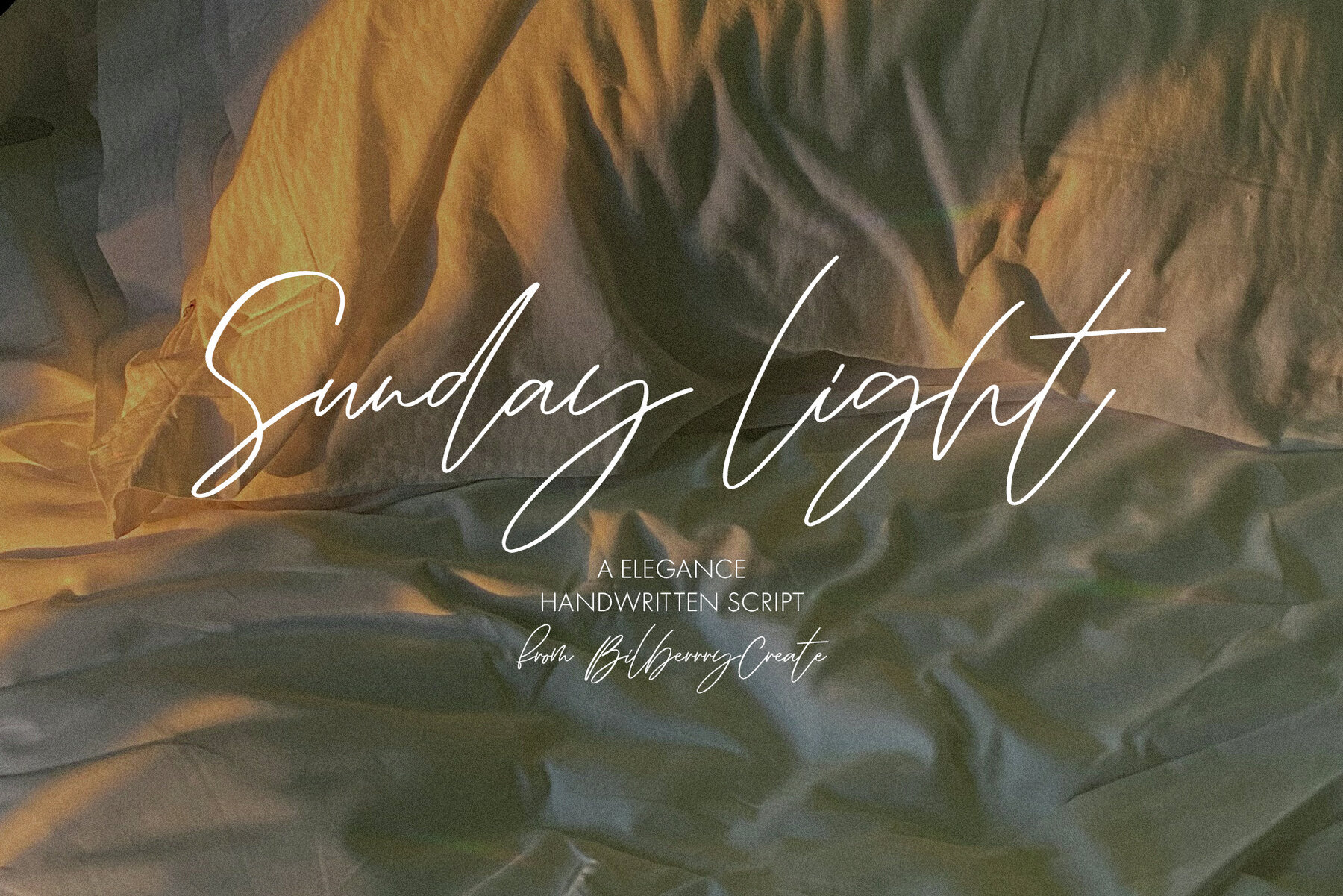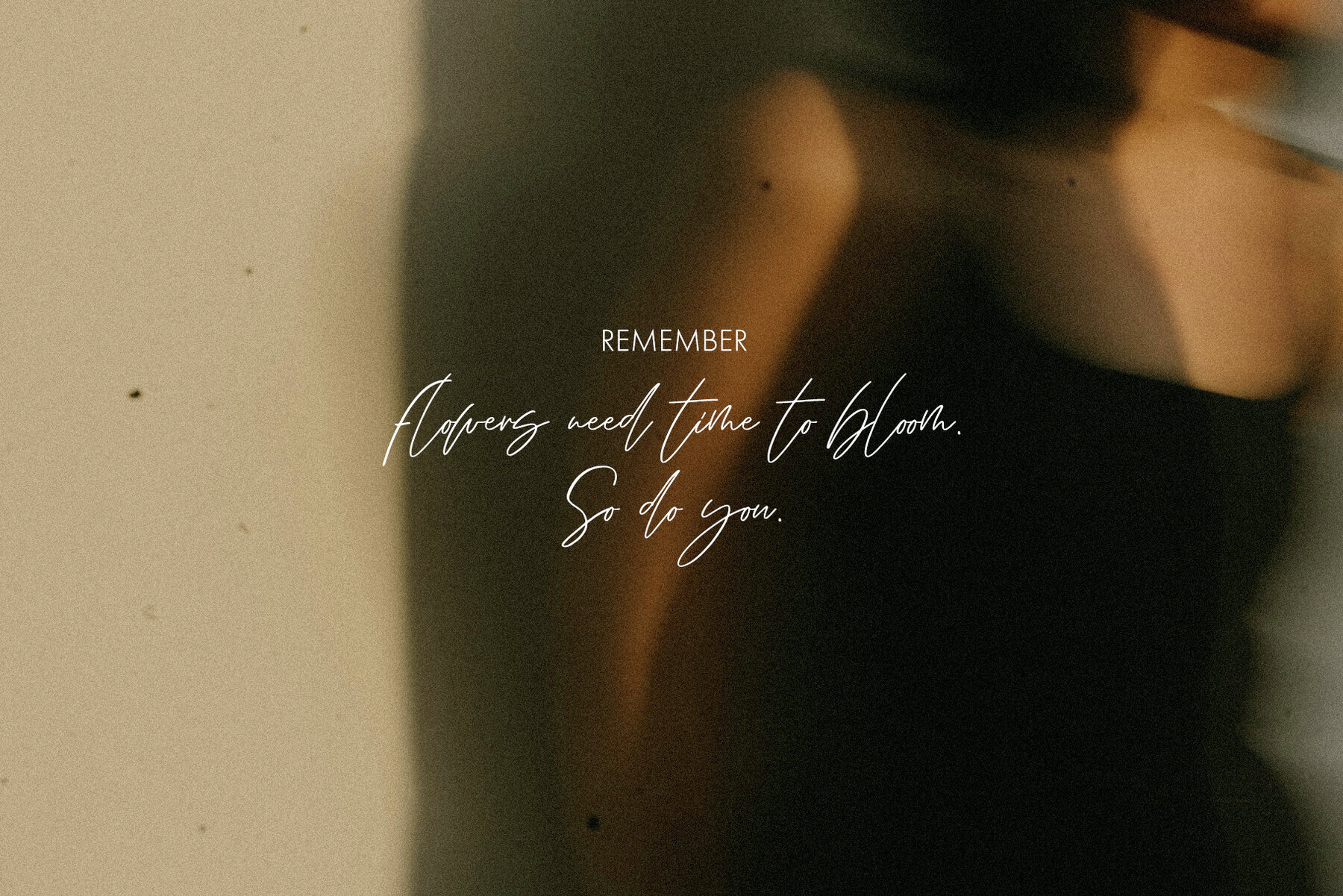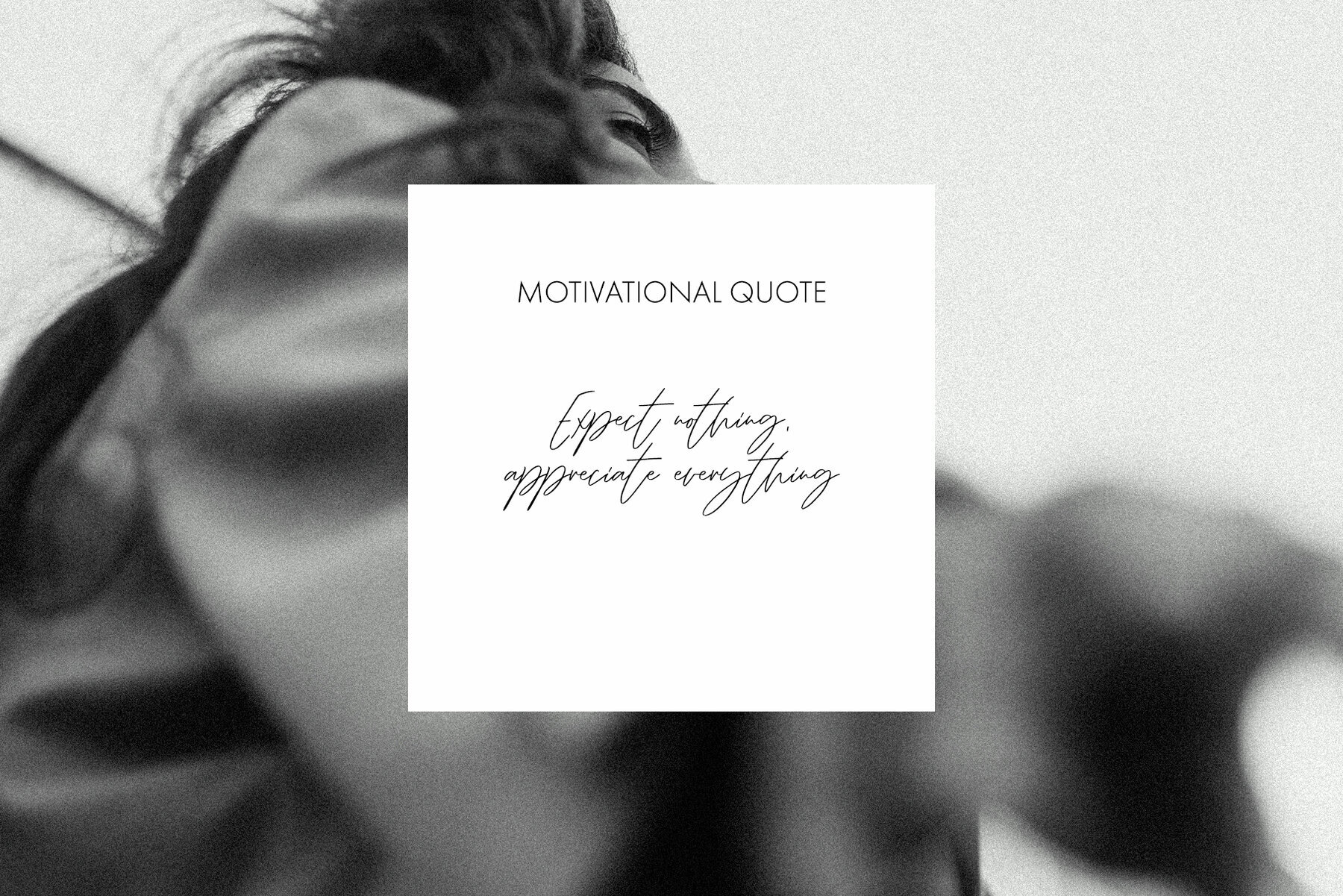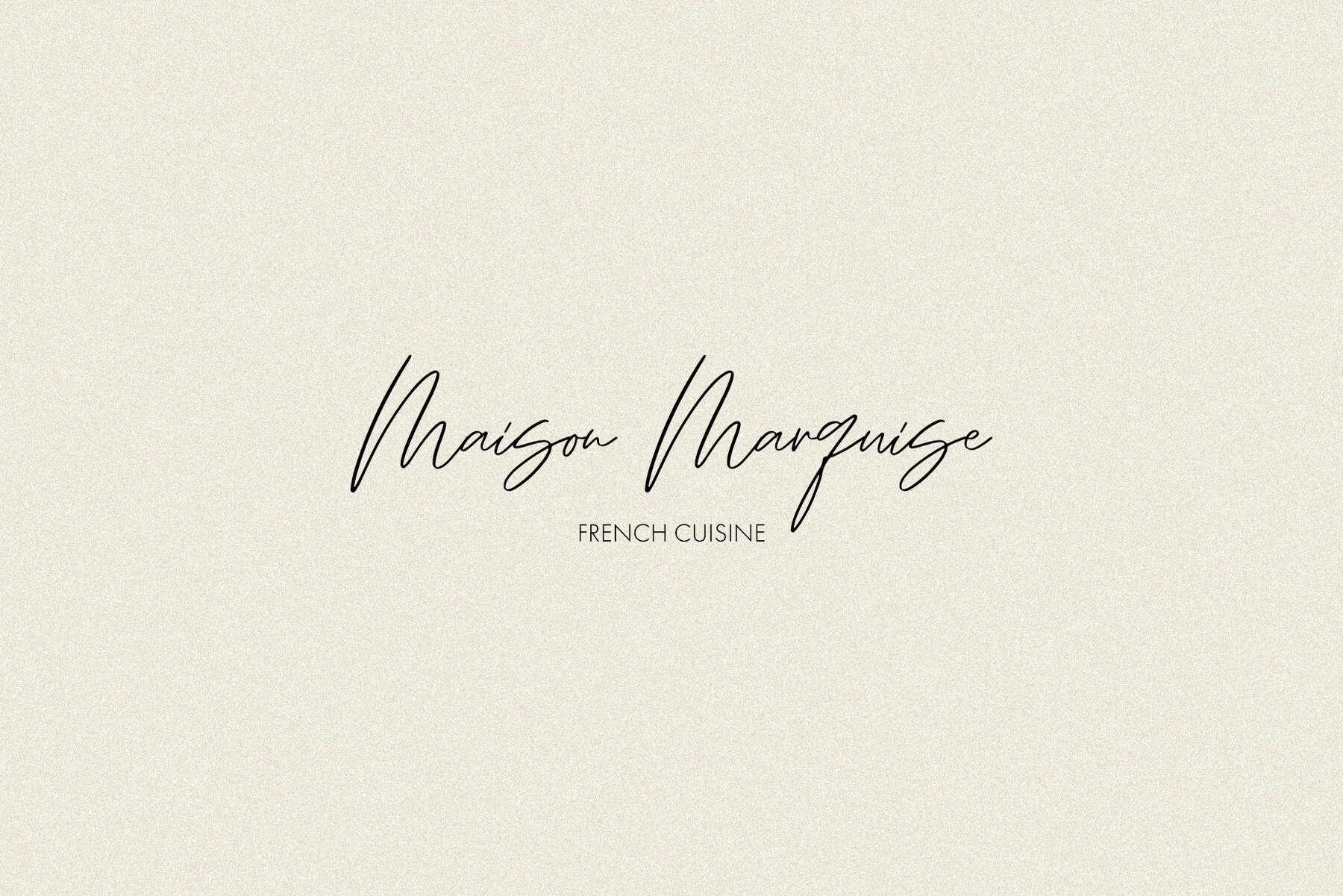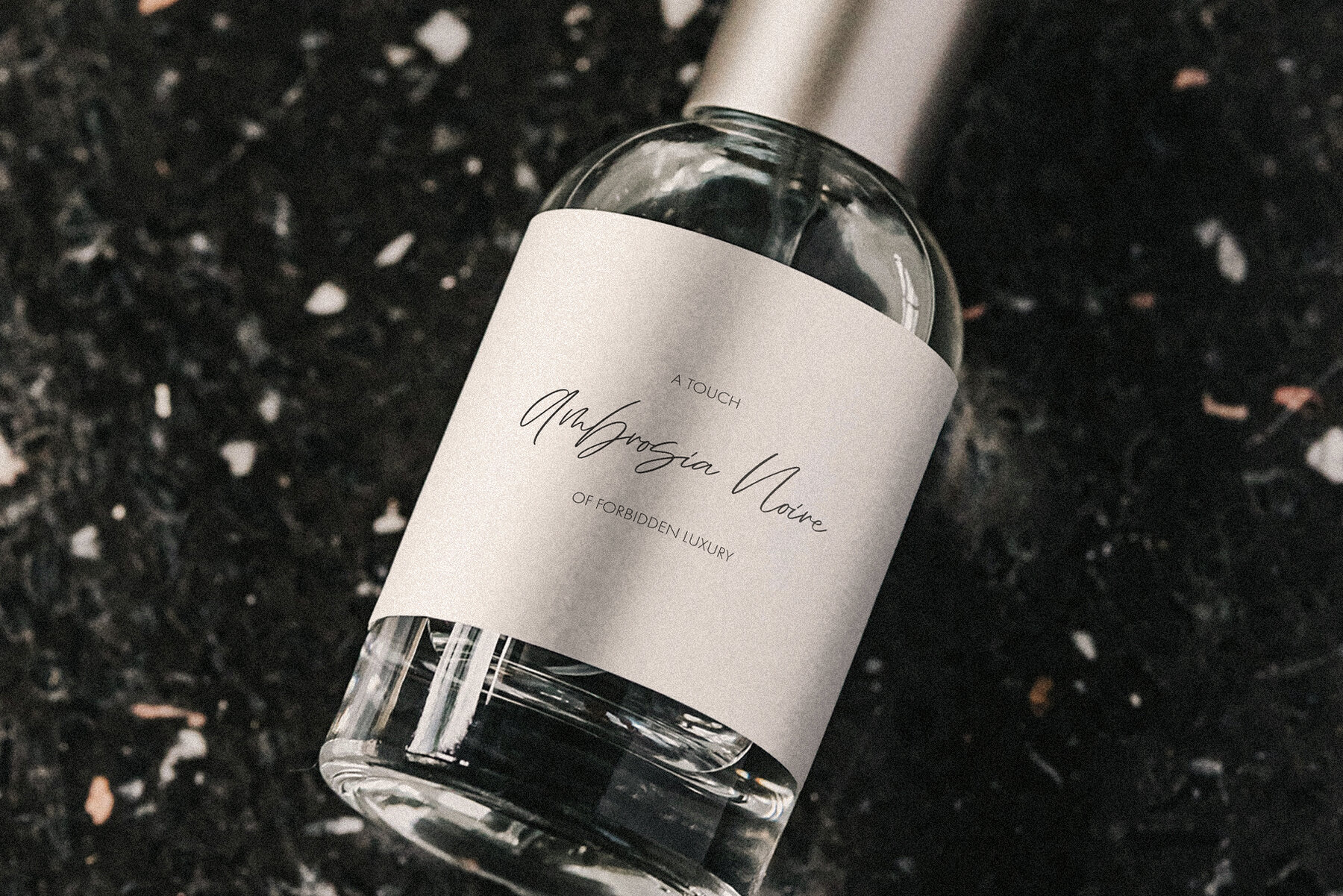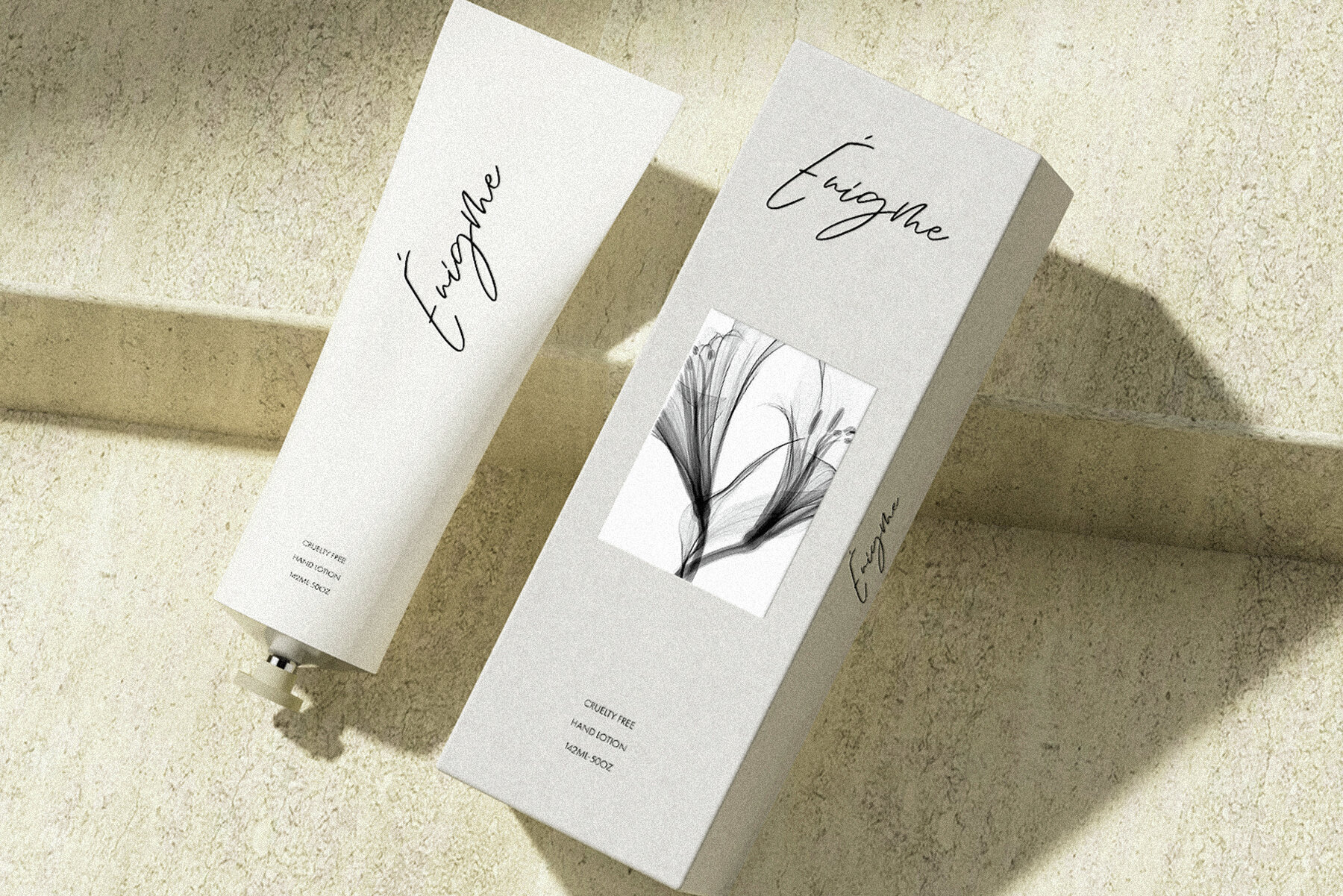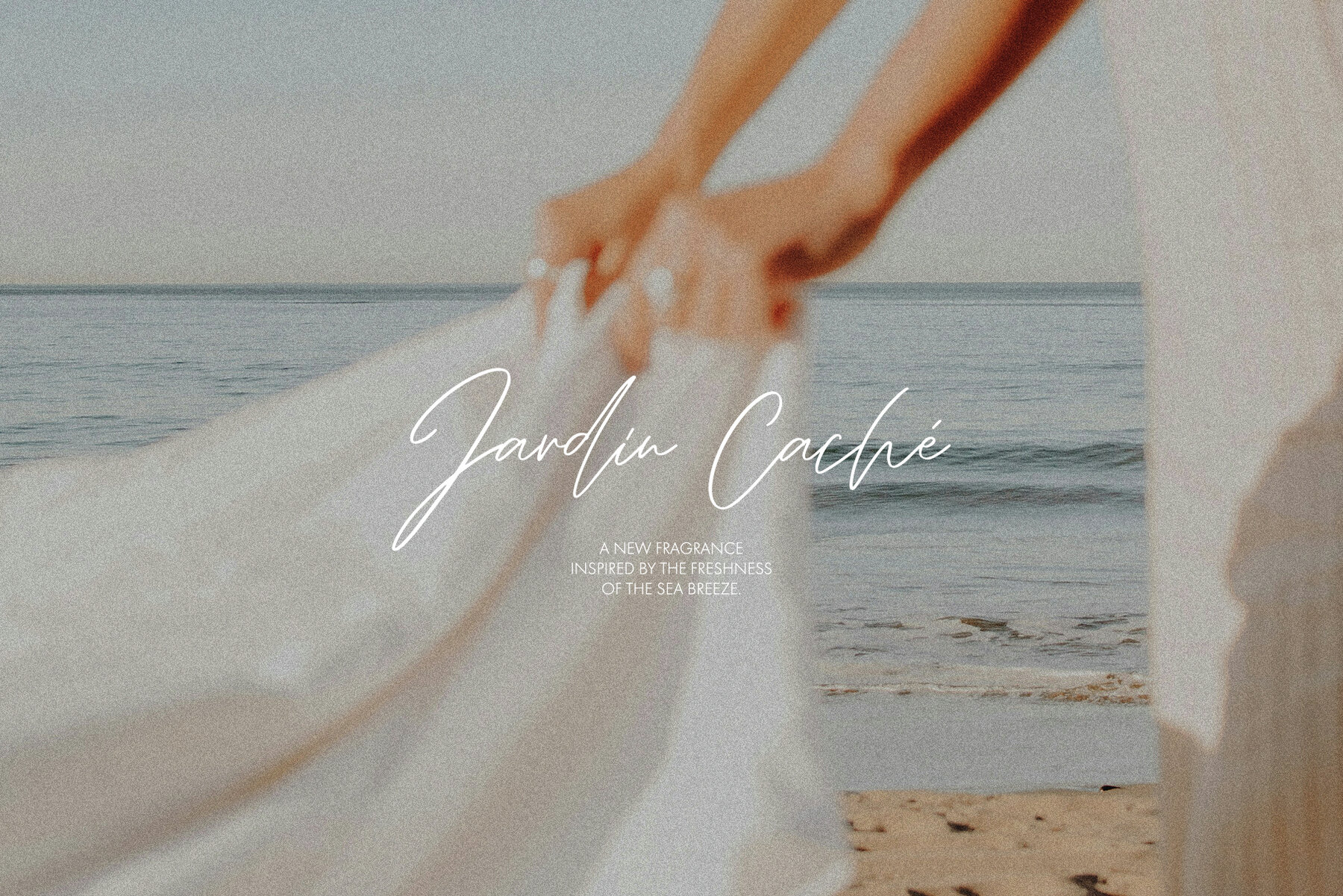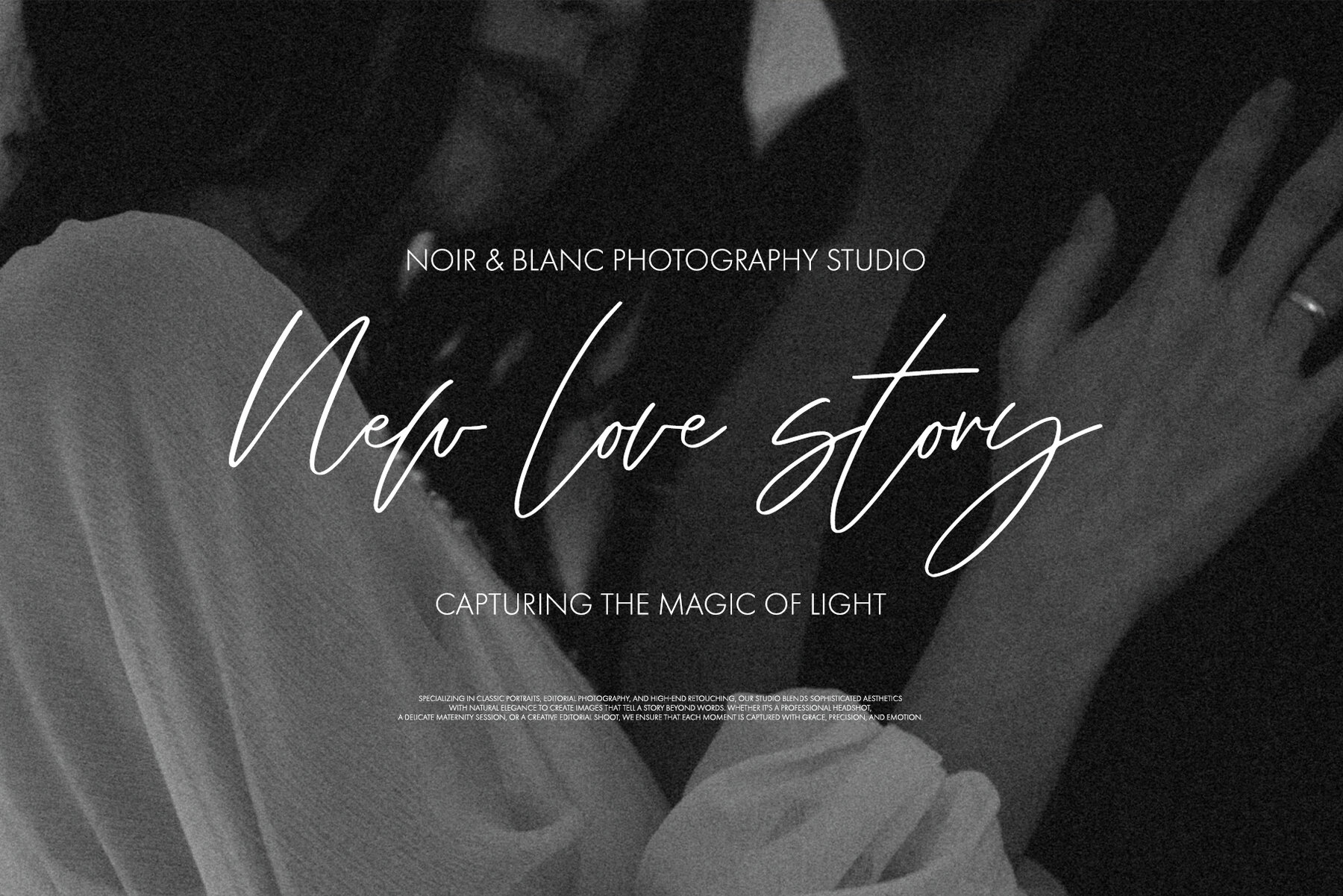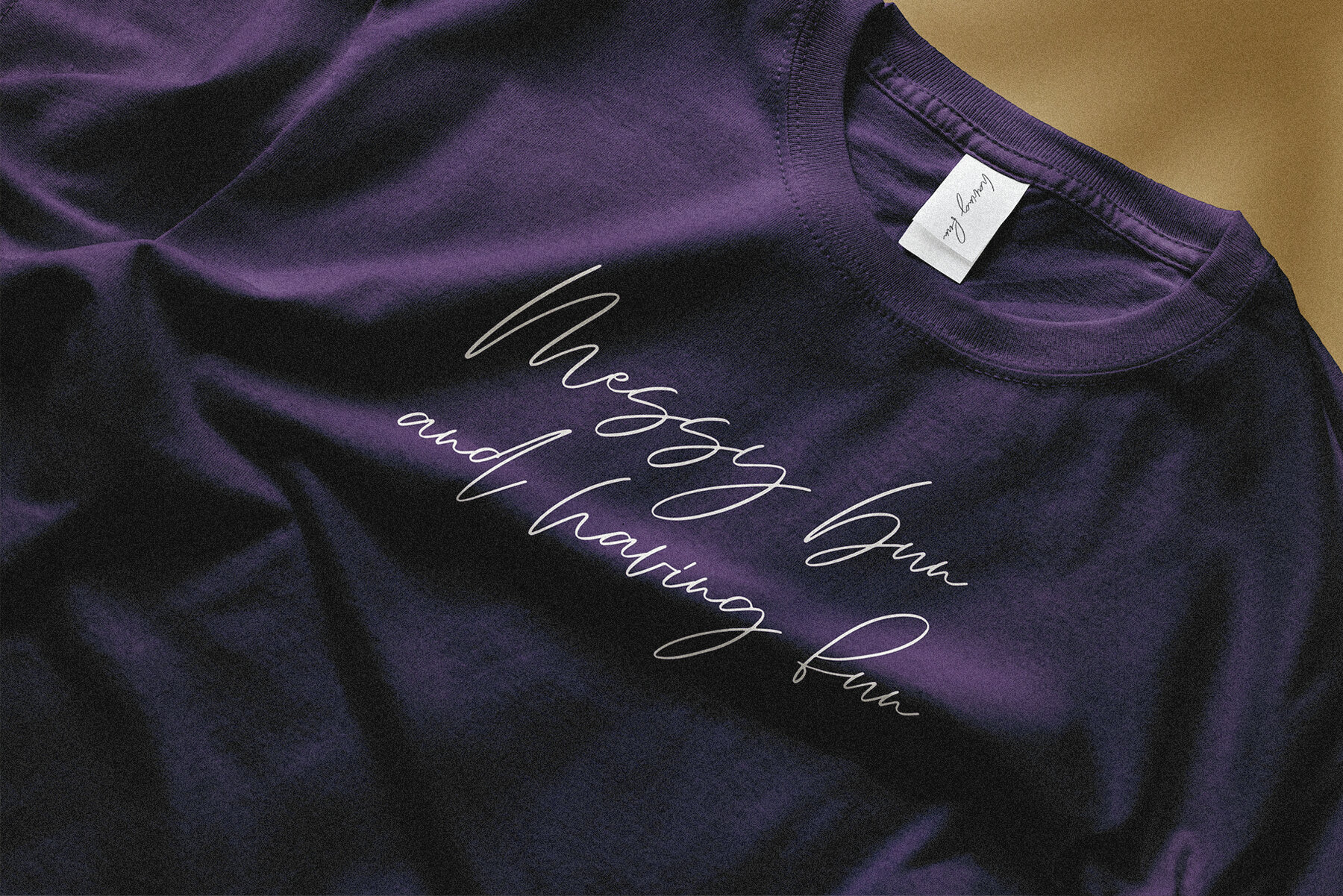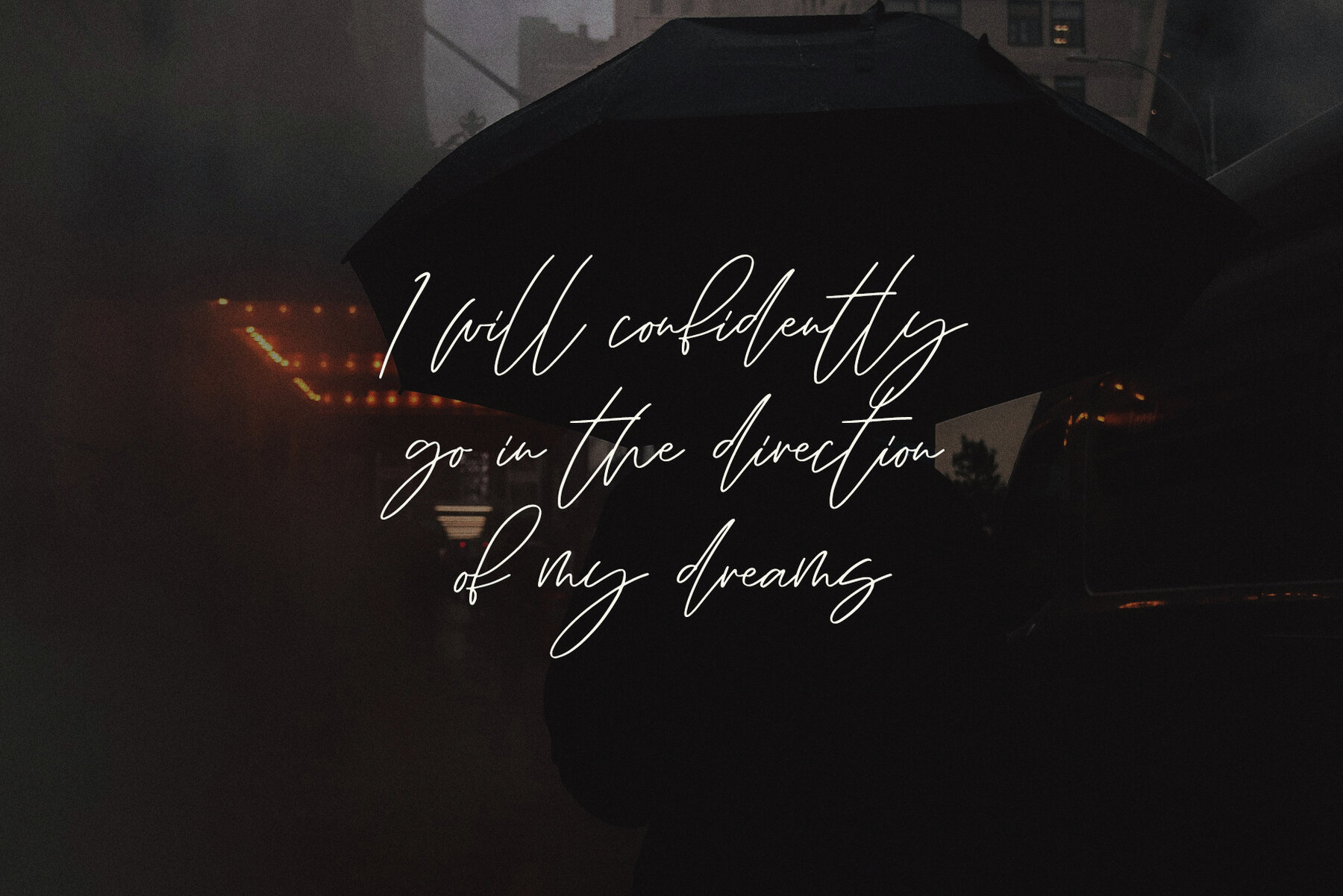
Sunday Light Font
Sundaylight
Sunday Light is an elegant handwritten font, ideal for adding a personal touch to any project. This versatile font can enhance a wide range of items, including:Ideal Uses